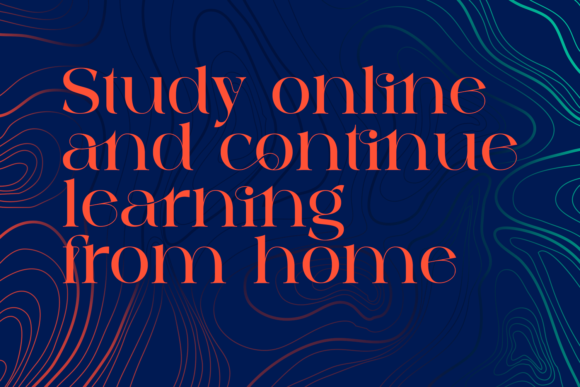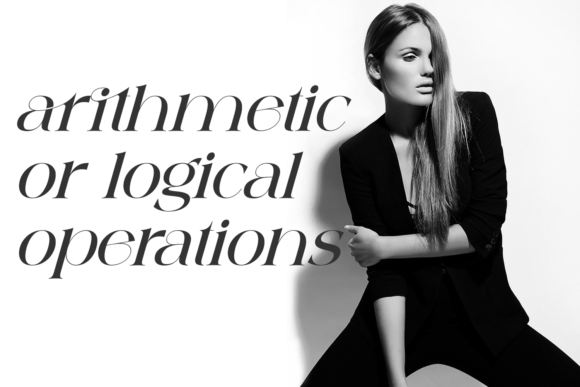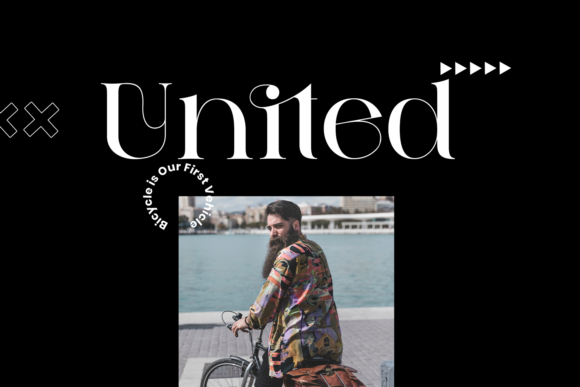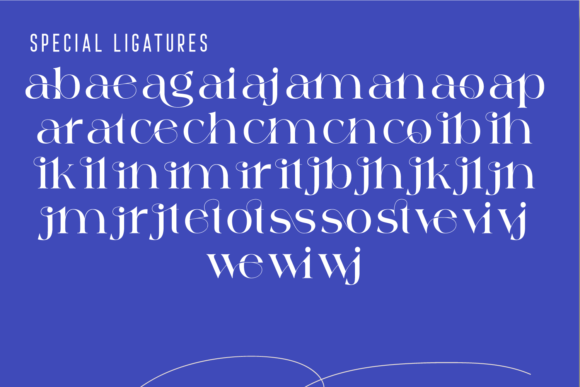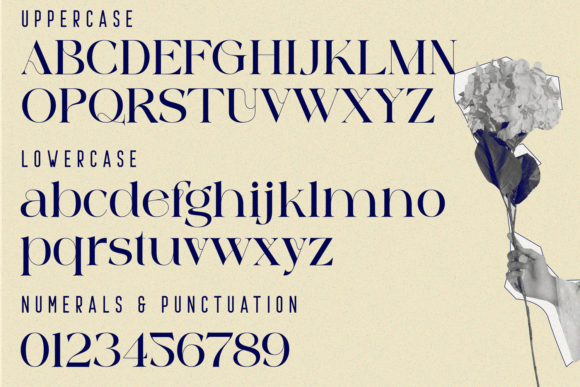
I still remember the frustration of working on a logo design project, hours spent searching for the perfect font, only to end up with something that just didn’t feel right. My client wanted a design that exuded elegance and sophistication, but everything I tried seemed to fall flat. That’s when I stumbled upon Against Font – a game-changer for designers like me.
An Honest Review of Against Font
- ✨ Elegant and modern: Against Font is a beautiful blend of classic serif and contemporary design elements, making it perfect for brands and logos that want to stand out.
- ✅ PUA encoded: The font comes with PUA encoding, which means easy access to glyphs, swashes, and other special characters.
- 💡 Versatile: Whether you’re designing a logo, magazine, or social media graphics, Against Font adapts seamlessly to different contexts.
While Against Font is an excellent choice, there are a few things to keep in mind:
- ⚠️ Glyph overload: With so many glyphs and swashes available, it can be overwhelming to navigate. Take some time to explore the font and get familiar with its features.
- 🤔 Pairing with other fonts: As with any font, pairing Against Font with other typefaces requires some thought. Experiment with different combinations to find the perfect match.
The Story Behind Against Font
Against Font was created with the goal of providing designers with a unique and elegant serif font that combines modern and nostalgic elements. The font’s creator aimed to craft a typeface that would be both versatile and stylish, suitable for a wide range of design applications.
| Font Name | Against Font |
| Author | 177Studio |
A: PUA (Private Use Area) encoding allows font creators to include additional characters, glyphs, and swashes that can be accessed easily. This means you can get creative with your designs without having to worry about compatibility issues.